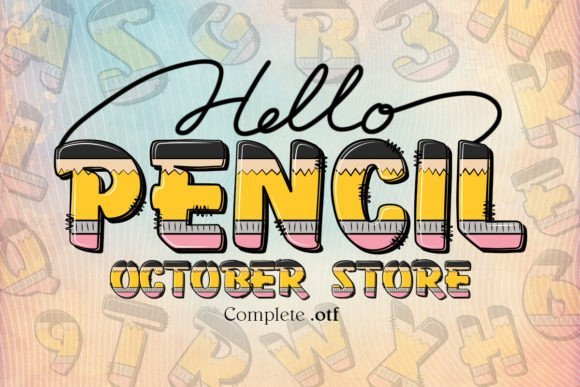
Unleash the Nostalgia with Hello Pencil Font
Do you remember the first day of school, walking through the classroom door with a mix of excitement and nervousness? The sound of pencils scratching on paper, the chatter of friends, and the wise words of a teacher guiding you through the journey of learning. For many, this is a cherished memory that never fades away. And what better way to relive it than with the timeless Hello Pencil Font?
Designed to evoke a sense of nostalgia and creativity, the Hello Pencil Font is a perfect blend of style and typography. This versatile font is ideal for designers looking to add a personal touch to their projects. With its unique characters and black version compatibility with Cricut Design Space, it’s an excellent choice for those who want to bring back their classroom memories with an innovative twist.
Hello Pencil Font Key Features
- Unique Characteristics: The Hello Pencil Font features a playful, hand-drawn style with subtle imperfections, giving it a unique and charming appearance
Hello Pencil Font Review
Overall, I think the Hello Pencil Font is a unique and charming addition to any design project. ✨ The hand-drawn style gives it a personal and playful touch that can add a lot of character to your work.
One of the things I appreciate about this font is its versatility. ✨ It can be used for everything from children’s books to packaging labels, and it always looks great. The font is also highly customizable, with a wide range of weights and styles to choose from.
- Unique, hand-drawn style that adds a personal touch
- Highly customizable with a wide range of weights and styles
- Versatile and can be used for a variety of projects
- ⚠️ May not be suitable for formal or professional projects
- ⚠️ Some letters and characters may not be perfectly legible at small font sizes
Overall, I think the Hello Pencil Font is a great choice for designers who want to add a little extra personality to their work. While it may not be suitable for every project, it’s definitely a unique and charming option that can help you stand out.
Hello Pencil Font is ideal for creating playful, handwritten-style text in various design contexts, such as:
- Social media posts and graphics
- Children’s book illustrations and design
- Handwritten-style invitations and event graphics
For optimal results, use Hello Pencil Font in conjunction with bright, bold colors and playful design elements to create a visually appealing and engaging design.
Alternatives to Hello Pencil Font for Designers
Pacifico is a beautiful, elegant script font that works well for designs that require a touch of sophistication and luxury. It’s perfect for wedding invitations, branding materials, and other high-end projects.
Compared to Hello Pencil Font, Pacifico is more refined and polished, while Hello Pencil Font has a more casual, handwritten feel.
Great Vibes is a fun, energetic script font that’s great for designs that need a playful and youthful vibe. It’s perfect for social media graphics, advertising campaigns, and other projects that require a lighthearted tone.
Compared to Hello Pencil Font, Great Vibes is more dynamic and expressive, while Hello Pencil Font is more subdued and subtle.
Carolyna Pro is a elegant, modern script font that’s perfect for designs that require a touch of sophistication and glamour. It’s great for branding materials, packaging design, and other projects that need a high-end feel.